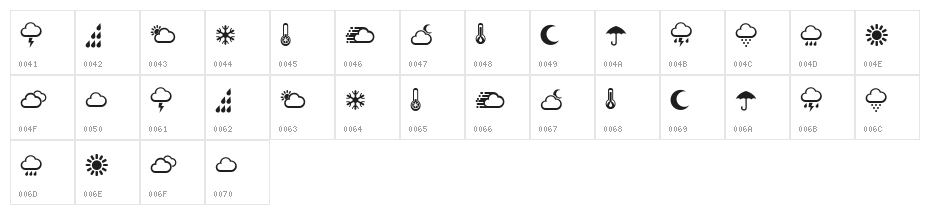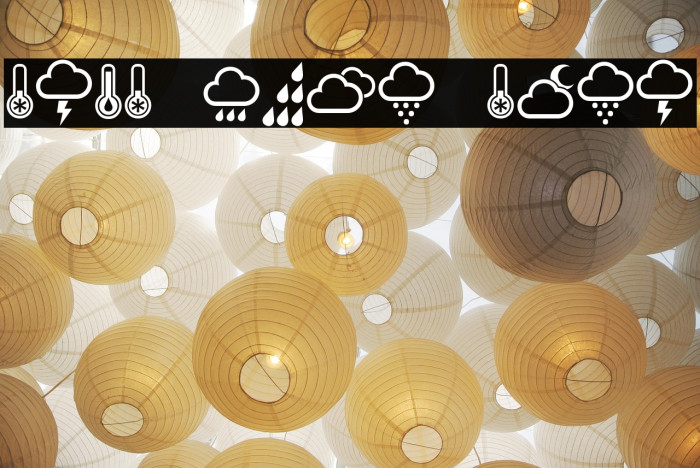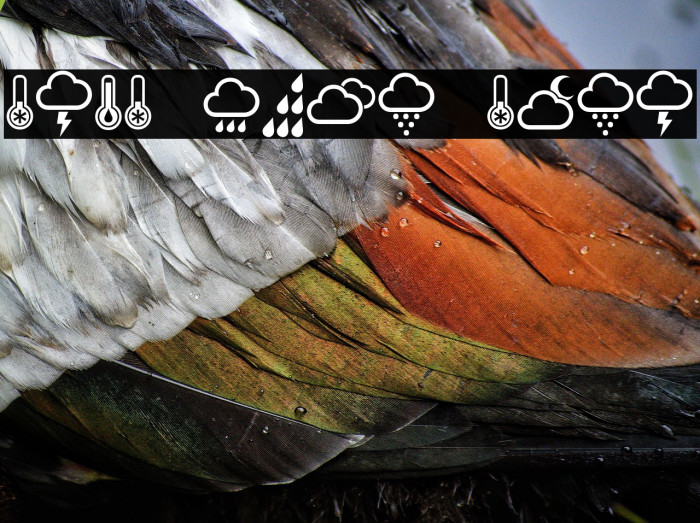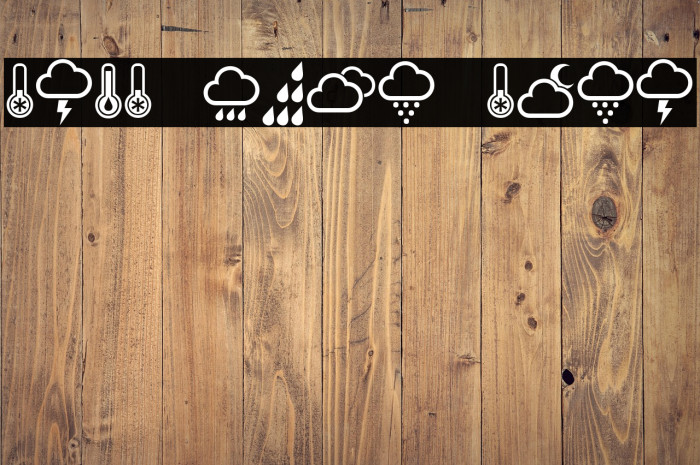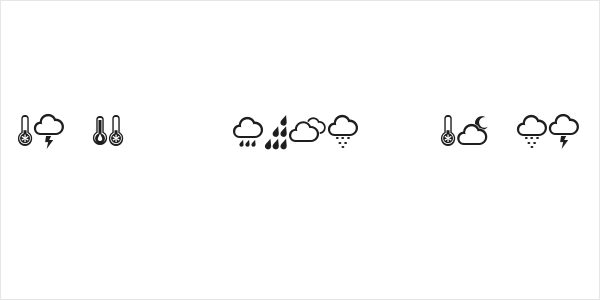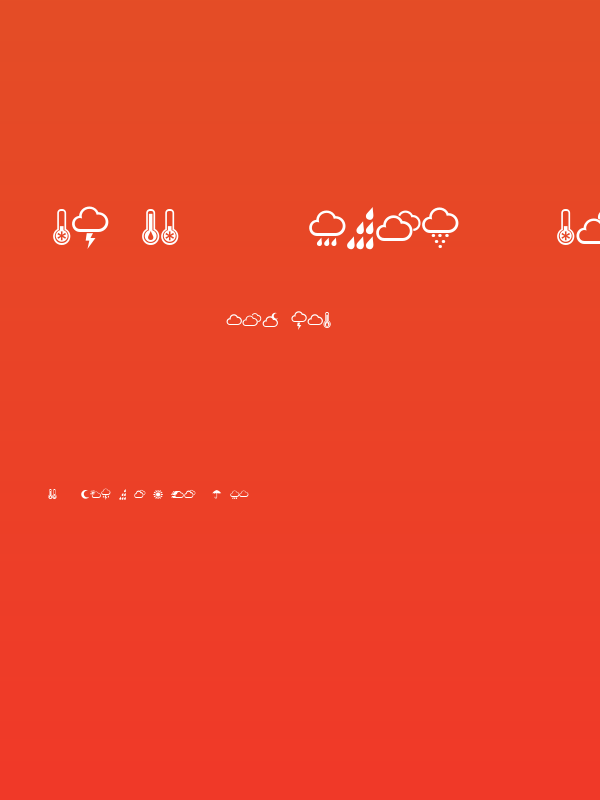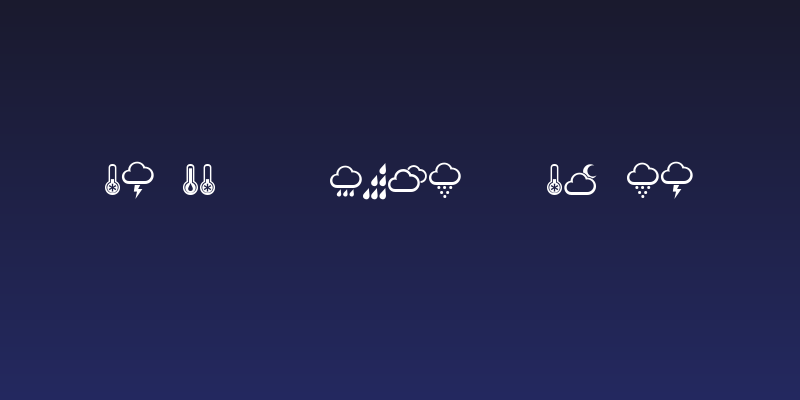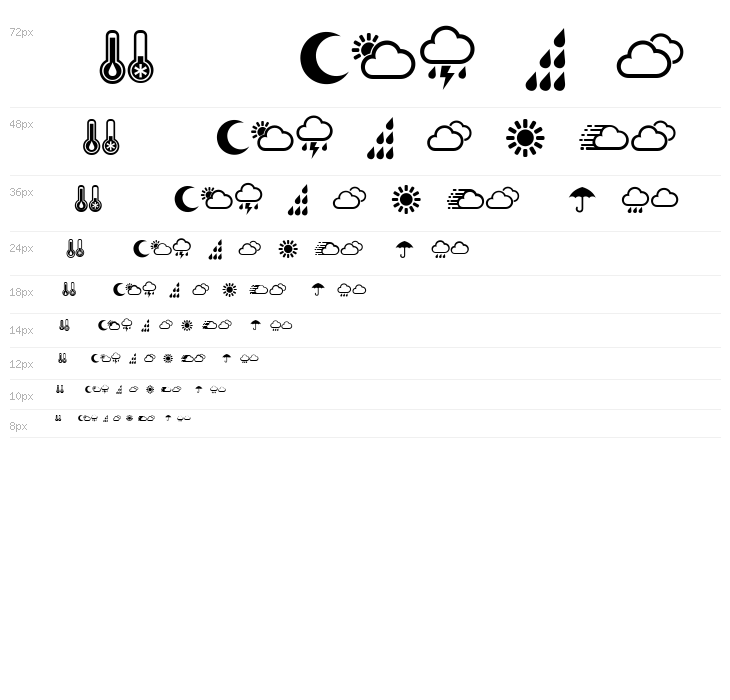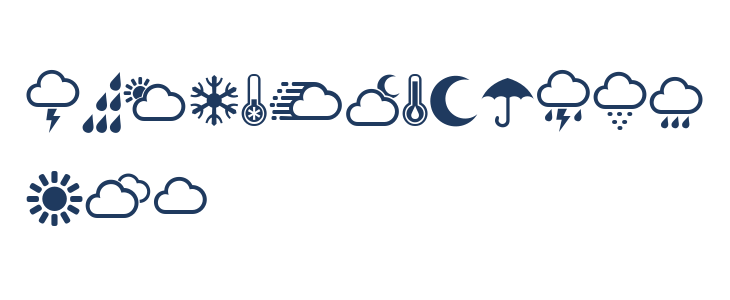
Weather Symbols Regular Font
Weather Symbols Regular Description
This collection of symbols is designed to represent various weather conditions in a clear and concise manner. Each symbol is crafted with bold, clean lines, ensuring high visibility and easy recognition. The set includes icons for rain, snow, wind, temperature, clouds, sun, moon, and more, making it versatile for any weather-related application. The symbols are uniform in style, providing a cohesive look that is both modern and functional. The simplicity of the design allows for quick comprehension, which is essential for weather forecasting and reporting.
| Use Case | Icons, Infographics, Educational materials |
| Proposed Projects | Ideal for weather apps, forecasts, educational materials, and infographics. |